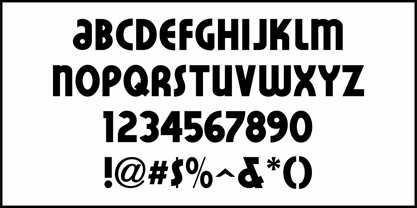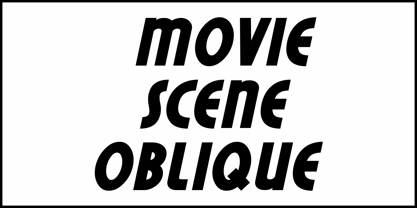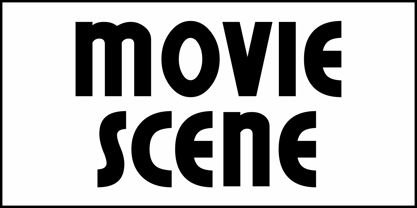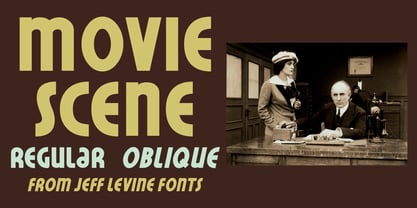
Movie Scene JNL
by Jeff Levine
The Movie Scene JNL Font Family was designed by Jeff Levine and published by Jeff Levine. Movie Scene JNL contains 2 styles and family package options. More about this family
The cast names on the poster for the 1933 Clark Gable-Helen Hayes romance film "White Sister" were hand lettered in an Art Deco sans serif design.
Now redrawn digitally as Movie Scene JNL, it's available in both regular and oblique versions.
About Jeff Levine
Jeff Levine has been in love with lettering since the third grade, when a schoolmate brought a lettering stencil into class. He has worked in both the graphics and music industries, and began his work with digital type via his own site, which hosted over one hundred free dingbat fonts until its retirement in 2009. Although these fonts were experimental at best, Jeff received "thank you" letters from points all over the world for making his designs available. Encouraged by these responses, Jeff decided to set his sights on creating interesting and commercially viable type fonts.